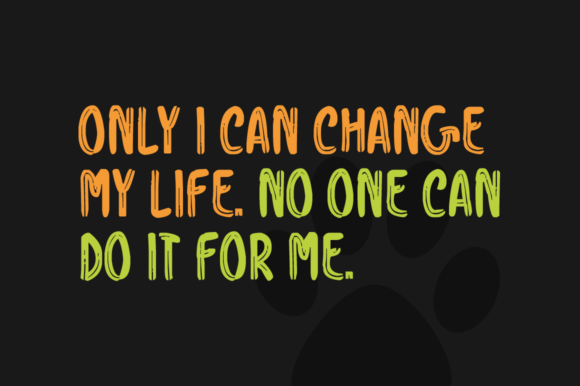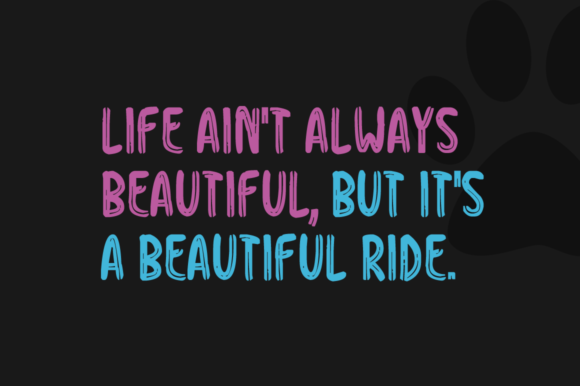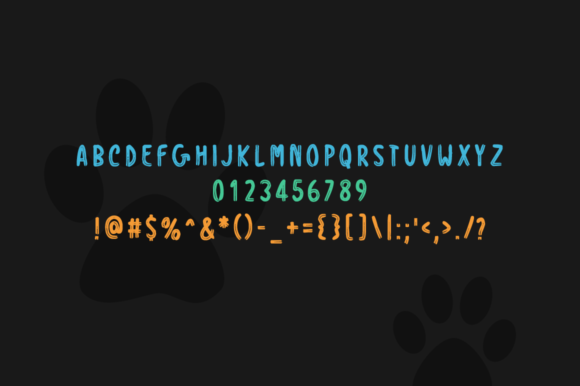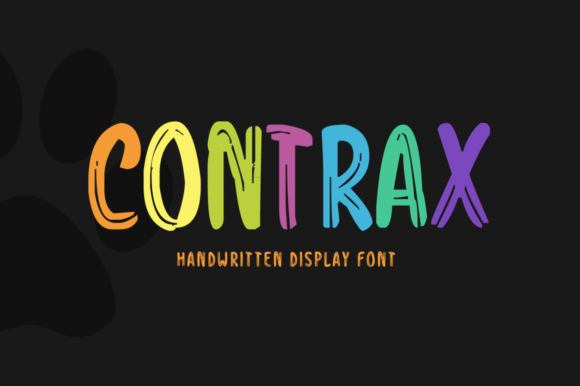
Introducing Contrax Font: The Bold and Fun Display Font with Organic Charm
Are you tired of using the same old fonts in your design projects? Look no further than Contrax Font, a bold and fun display font that’s sure to make your designs stand out. With its organic charm and unique character, Contrax Font is the perfect addition to any designer’s toolkit.
What is Contrax Font?
Contrax Font is a display font designed to make a statement. Its bold and fun design makes it perfect for use in headlines, titles, and other design elements where you want to grab attention. But what really sets Contrax Font apart is its organic charm. The font has a hand-crafted feel that’s reminiscent of traditional printing methods, but with a modern twist.
Key Features of Contrax Font
• Bold and Fun Design: Contrax Font is designed to be attention-grabbing and fun. Its bold lines and playful character make it perfect for use in designs where you want to make a statement.
• Organic Charm: Contrax Font has a hand-crafted feel that’s reminiscent of traditional printing methods. This gives it a unique and distinctive character that’s sure to set your designs apart.
• Highly Versatile: Contrax Font is highly versatile and can be used in a wide range of design projects, from posters and flyers to logos and branding materials.
• Easily Readable: Despite its bold design, Contrax Font is surprisingly easy to read, making it perfect for use in designs where you need to communicate a message quickly and clearly.
Uses for Contrax Font
Contrax Font is a highly versatile font that can be used in a wide range of design projects. Here are just a few ideas to get you started:
• Posters and Flyers: Contrax Font is perfect for use in posters and flyers, where you want to grab attention and communicate a message quickly and clearly.
• Logos and Branding Materials: Contrax Font can be used to create unique and memorable logos and branding materials that will help your business stand out.
• Social Media Graphics: Contrax Font is a great choice for social media graphics, where you want to create eye-catching and engaging content that will grab attention.
• Packaging Design: Contrax Font can be used in packaging design to create eye-catching and memorable labels and packaging materials.
Tips for Using Contrax Font
Here are a few tips for using Contrax Font in your design projects:
• Use it Boldly: Contrax Font is designed to be used boldly, so don’t be afraid to experiment with different sizes and colors.
• Pair it with Other Fonts: Contrax Font can be paired with other fonts to create interesting and dynamic designs. Try pairing it with a clean sans-serif font for a contrasting look.
• Experiment with Colors: Contrax Font looks great in a wide range of colors, so don’t be afraid to experiment and find the perfect color for your design.
Font Name Contrax Font
Author Nuovo Tocco
Contrax Font is a bold and fun display font with an organic charm that’s sure to make your design projects stand out. With its highly versatile design and easily readable character, Contrax Font is the perfect addition to any designer’s toolkit. Whether you’re creating posters and flyers, logos and branding materials, or social media graphics, Contrax Font is a great choice. So why not give it a try and see the difference it can make in your designs?